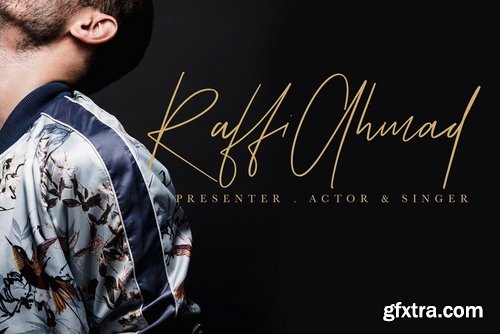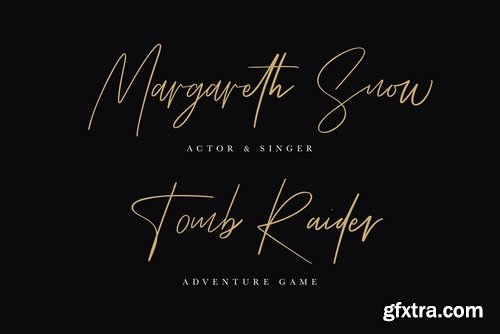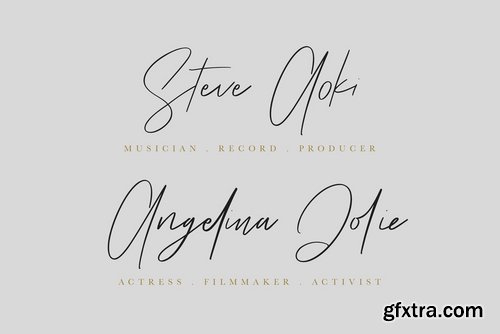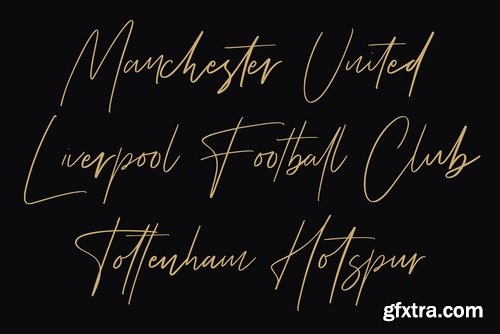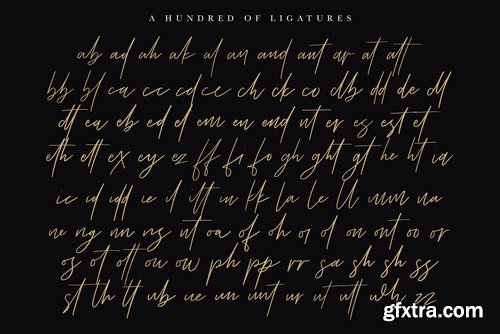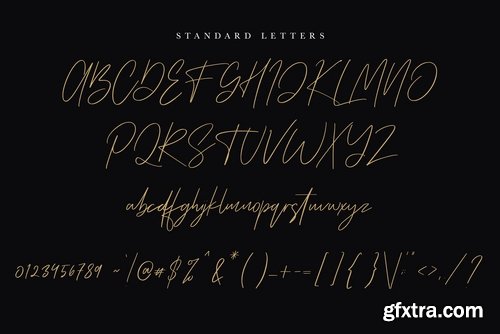
Scottsmith - Ligatures Font
Give your designs an authentic handcrafted feel. "Scottsmith" is perfectly suited to signature, stationery, logo, typography quotes, magazine or book cover, website header, clothing, branding, packaging design and more.